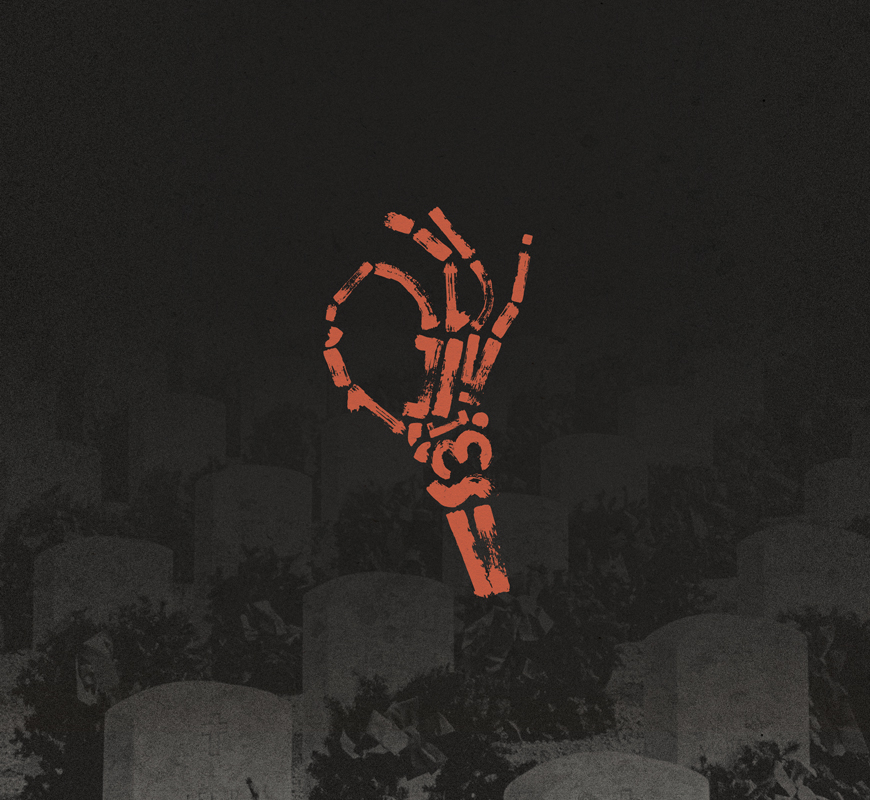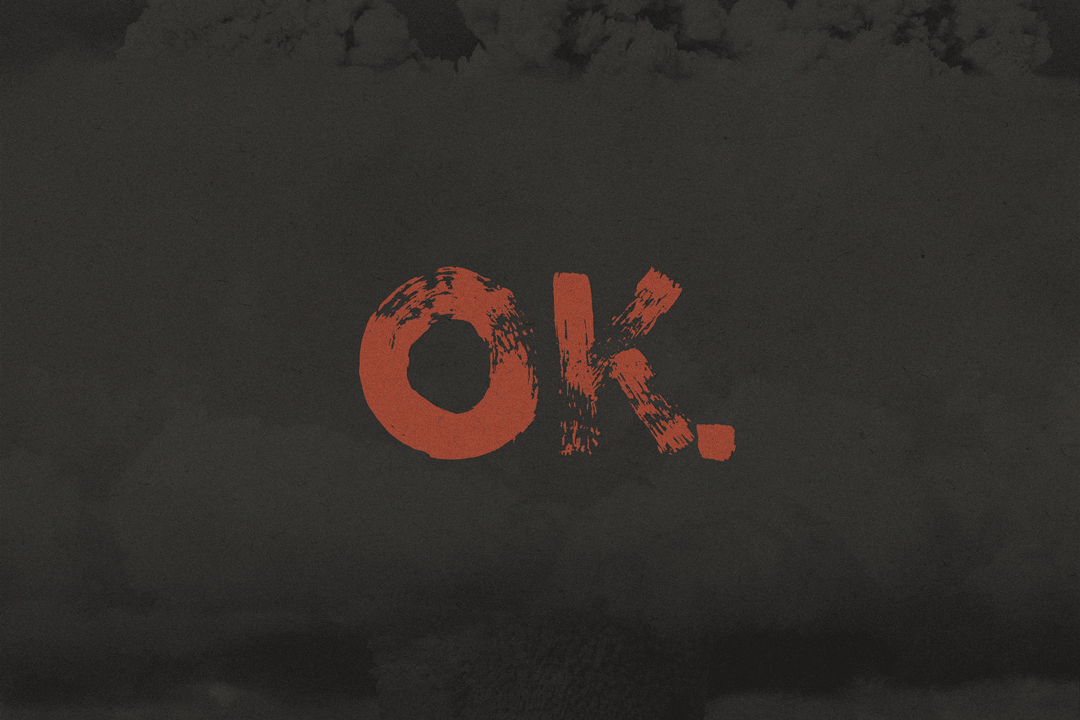
Mr. Grieves Brush Font
Mr. Grieves is a hand painted sans-serif font from Jenny Fox. Ideal for display use. Uppercase letter-forms have been hand rendered with bold, heavily textured brush strokes, and very minimally edited.
The offbeat and grungy appearance of Mr. Grieves was inspired by the Pixies song of the same name from their 1989 Doolittle album.